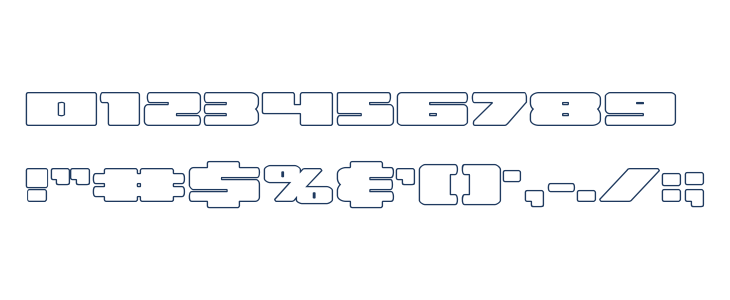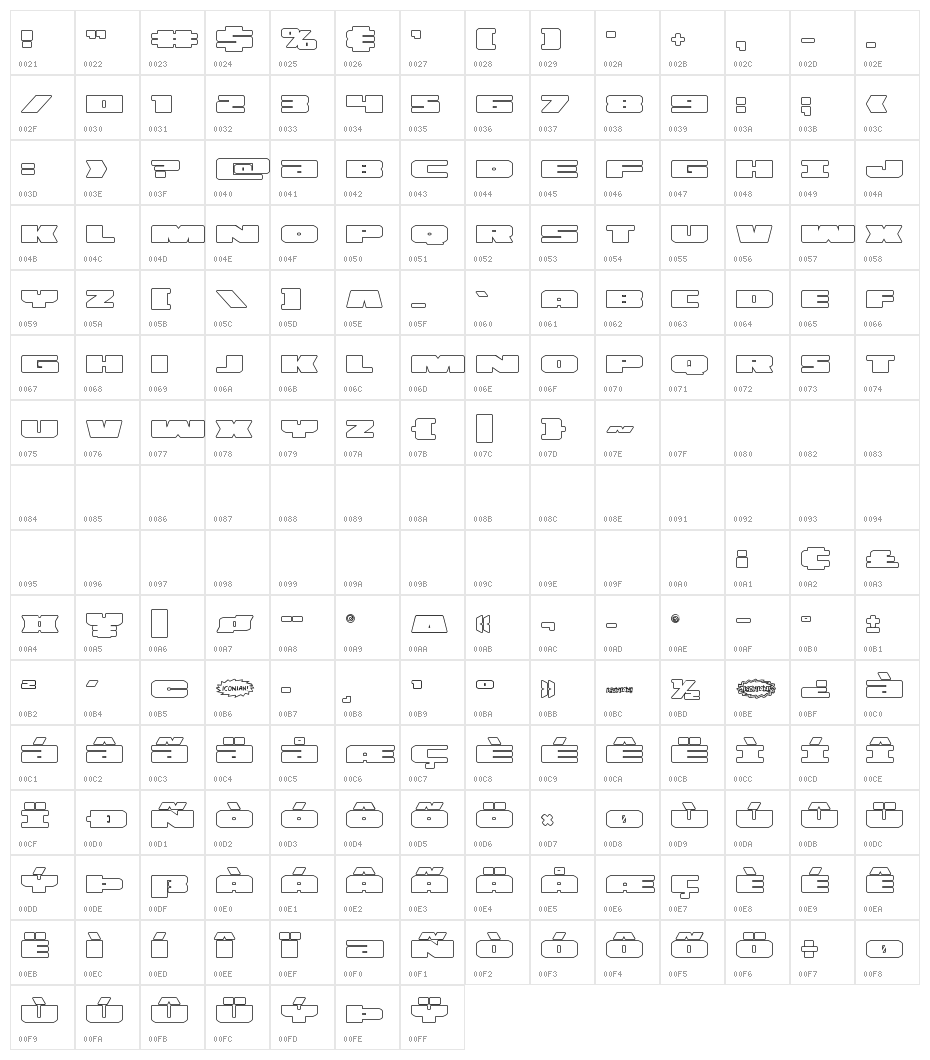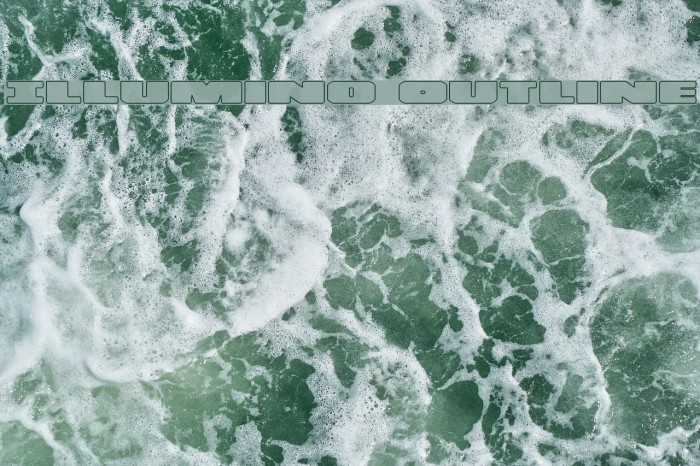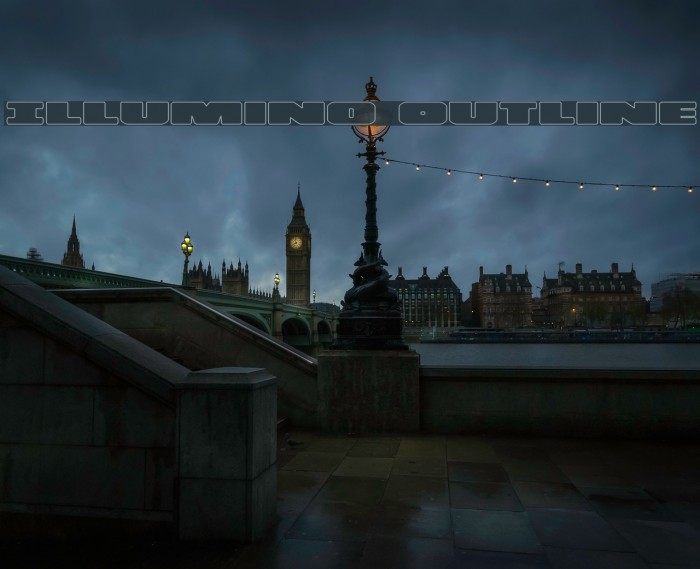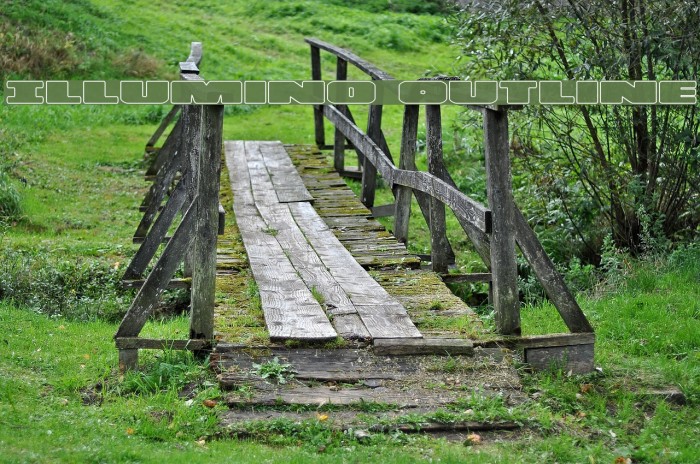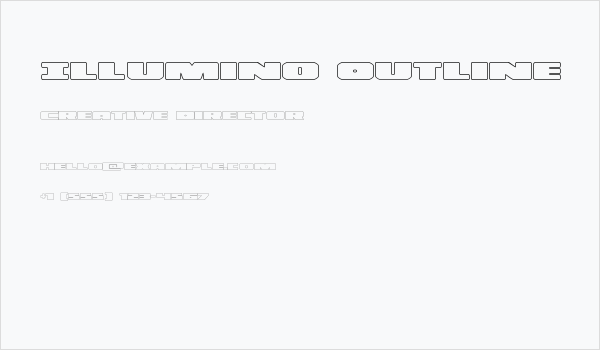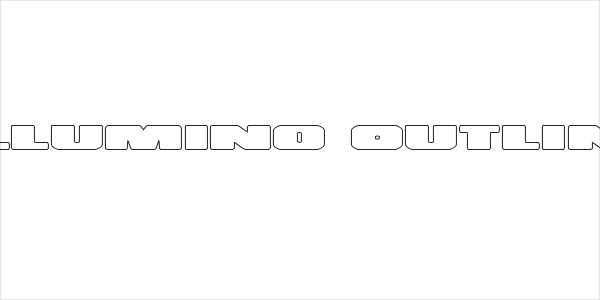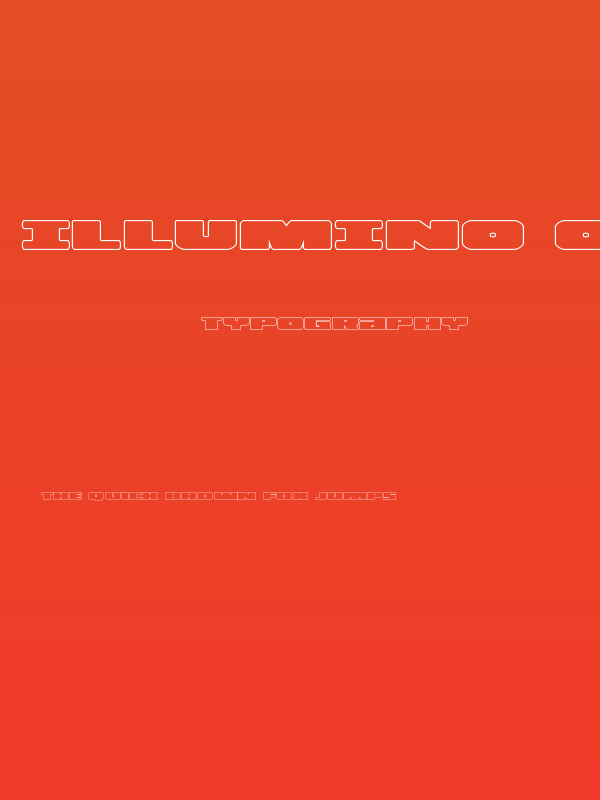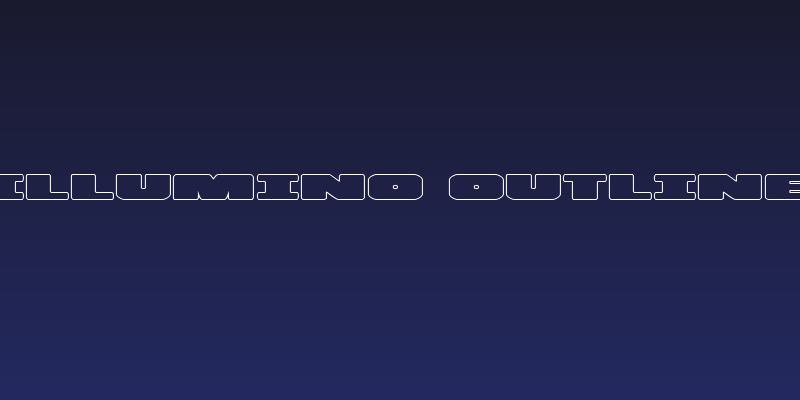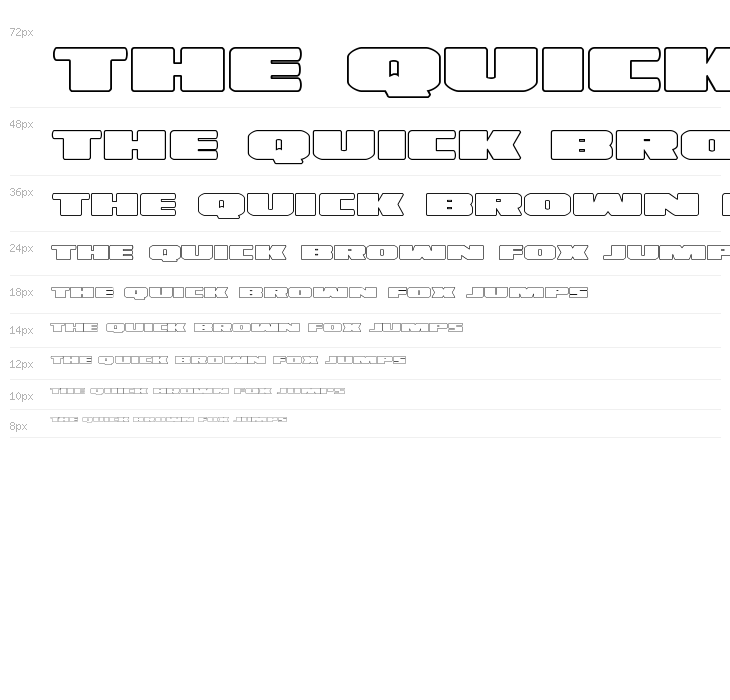
Illumino Outline Font
Illumino Outline Description
This font features a bold, geometric outline style that gives it a futuristic and modern appearance. Each character is crafted with a consistent thickness, creating a uniform look across all letters and numbers. The design is clean and minimalistic, with a focus on straight lines and right angles, making it highly legible and impactful. The uppercase and lowercase letters share a similar structure, enhancing the cohesive aesthetic. The numbers and special characters maintain the same stylistic approach, ensuring a seamless integration with the alphabet. This font's outline nature makes it ideal for creating striking visual designs where the text needs to stand out.